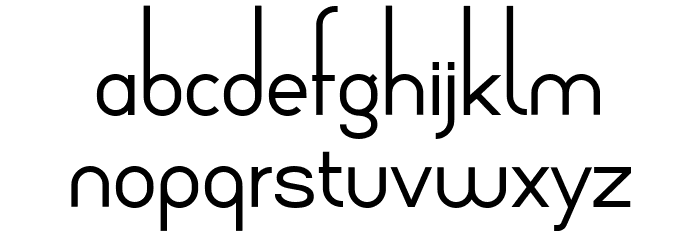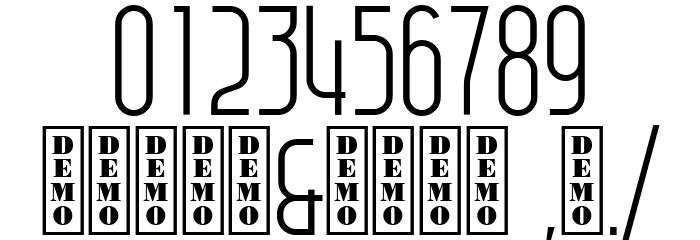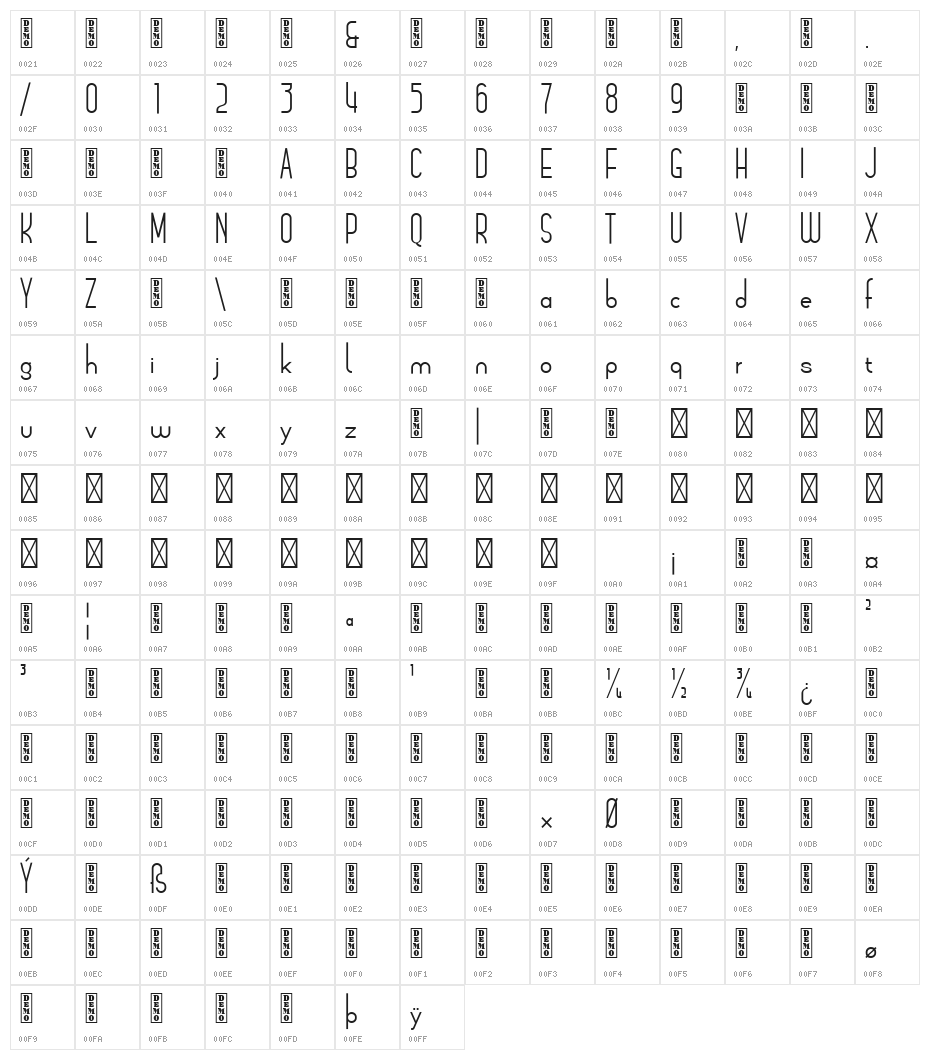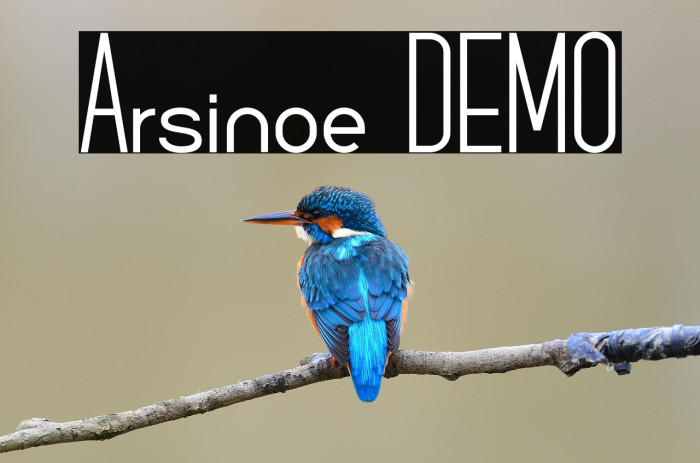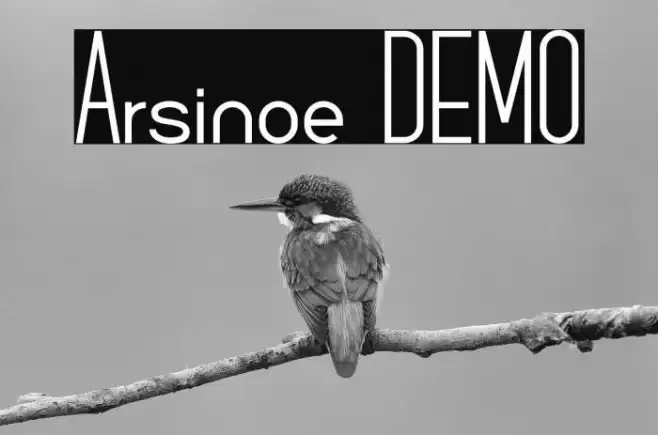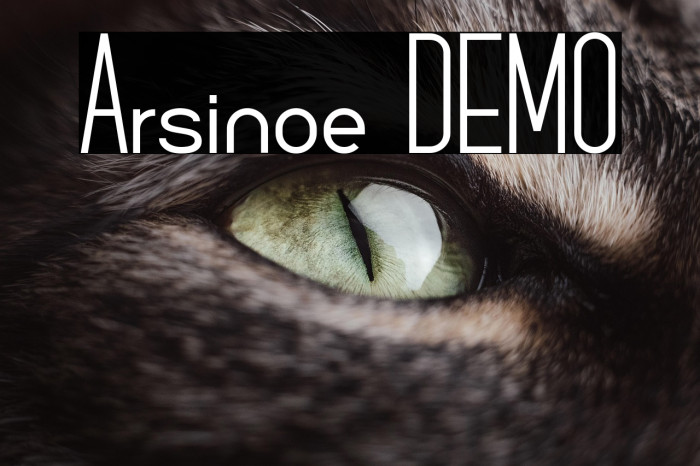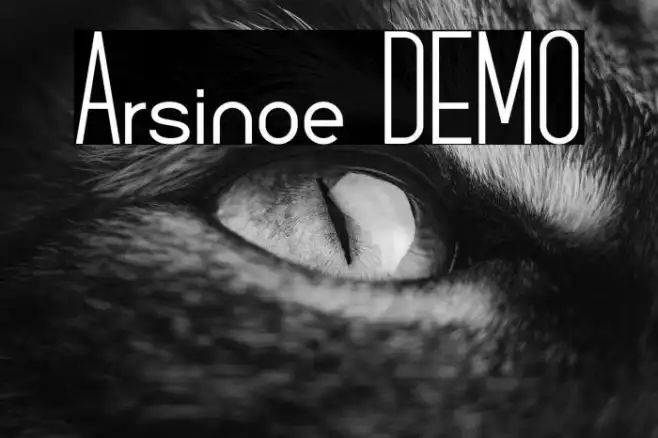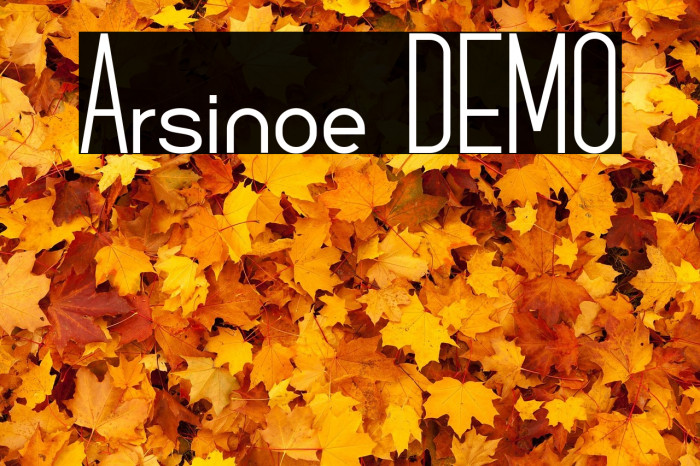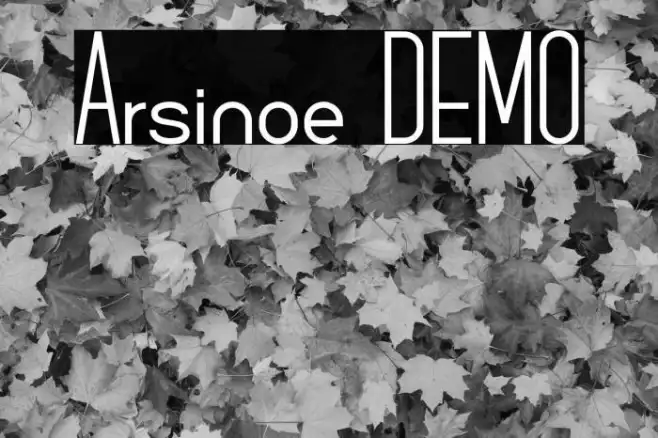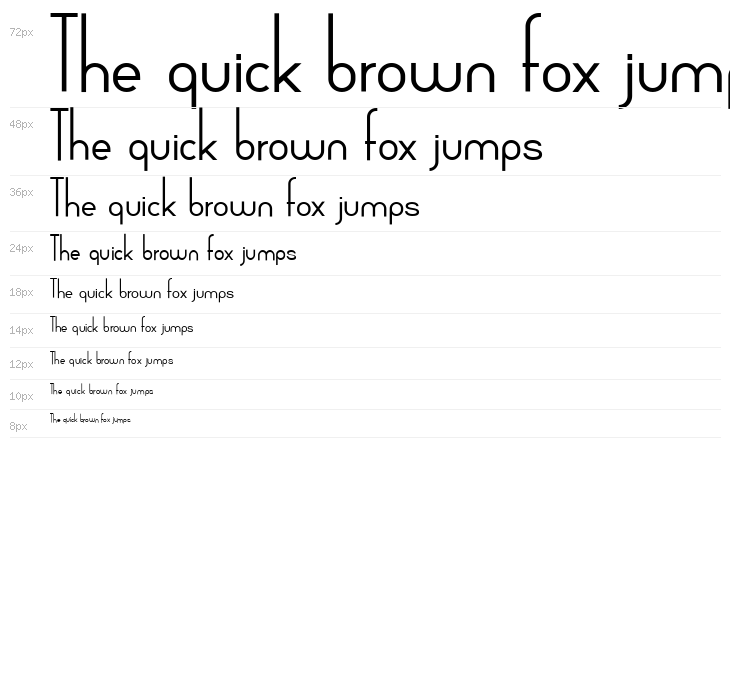
Arsinoe DEMO Font
This font features a modern and sleek design with tall, narrow characters that convey a sense of elegance and sophistication. The uppercase letters are particularly elongated, giving them a unique and striking appearance. The lowercase letters maintain a consistent style, with smooth curves and clean lines that enhance readability. The numerals are distinct and align well with the overall aesthetic, while the special characters add versatility. The font's minimalistic design makes it suitable for a variety of applications, from branding to editorial use.
A modern, sleek font with tall, narrow characters and a minimalist design.
- Proposed Projects: Ideal for branding, editorial design, fashion magazines, and luxury product packaging.
- Category: Sans-Serif